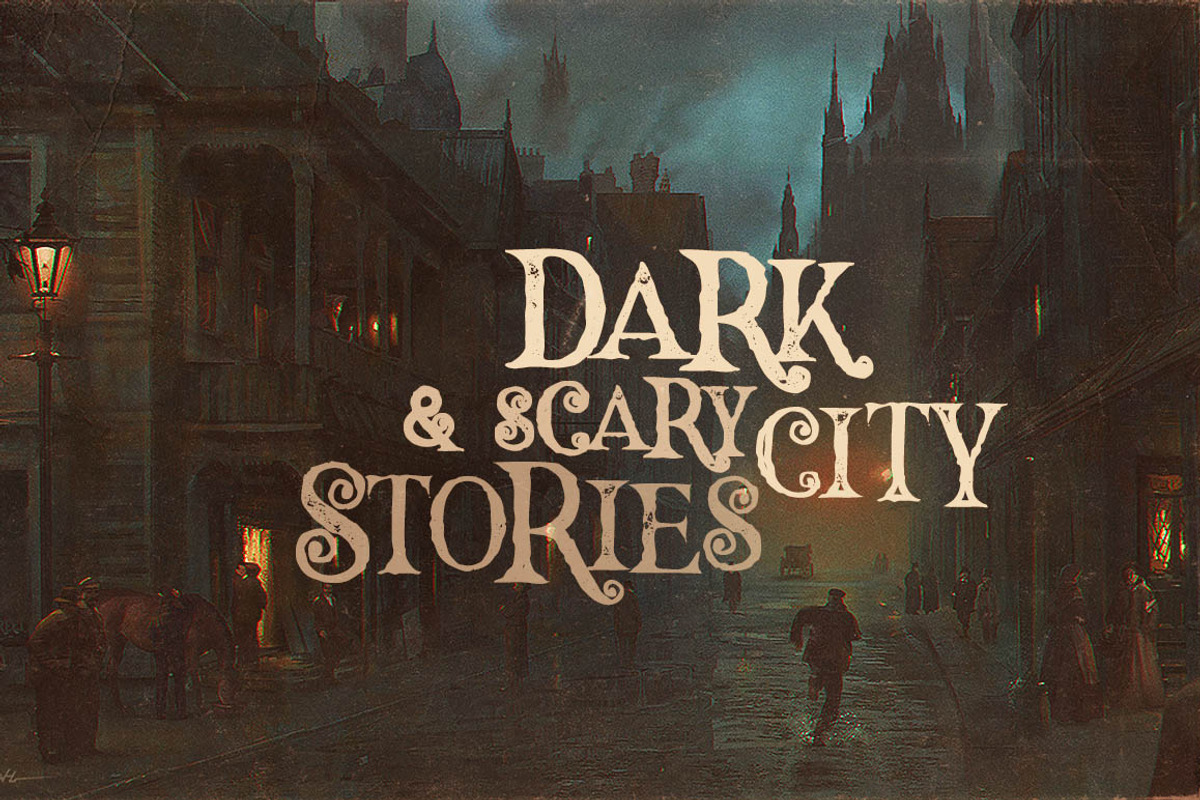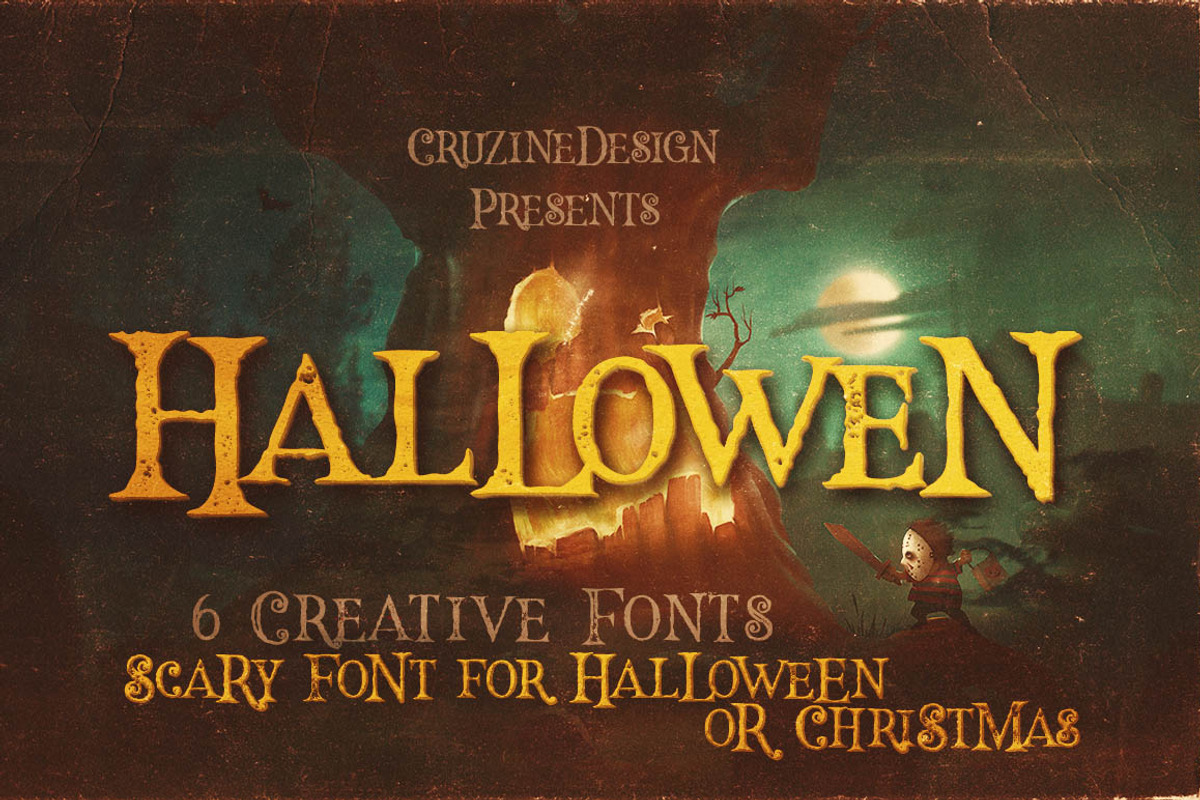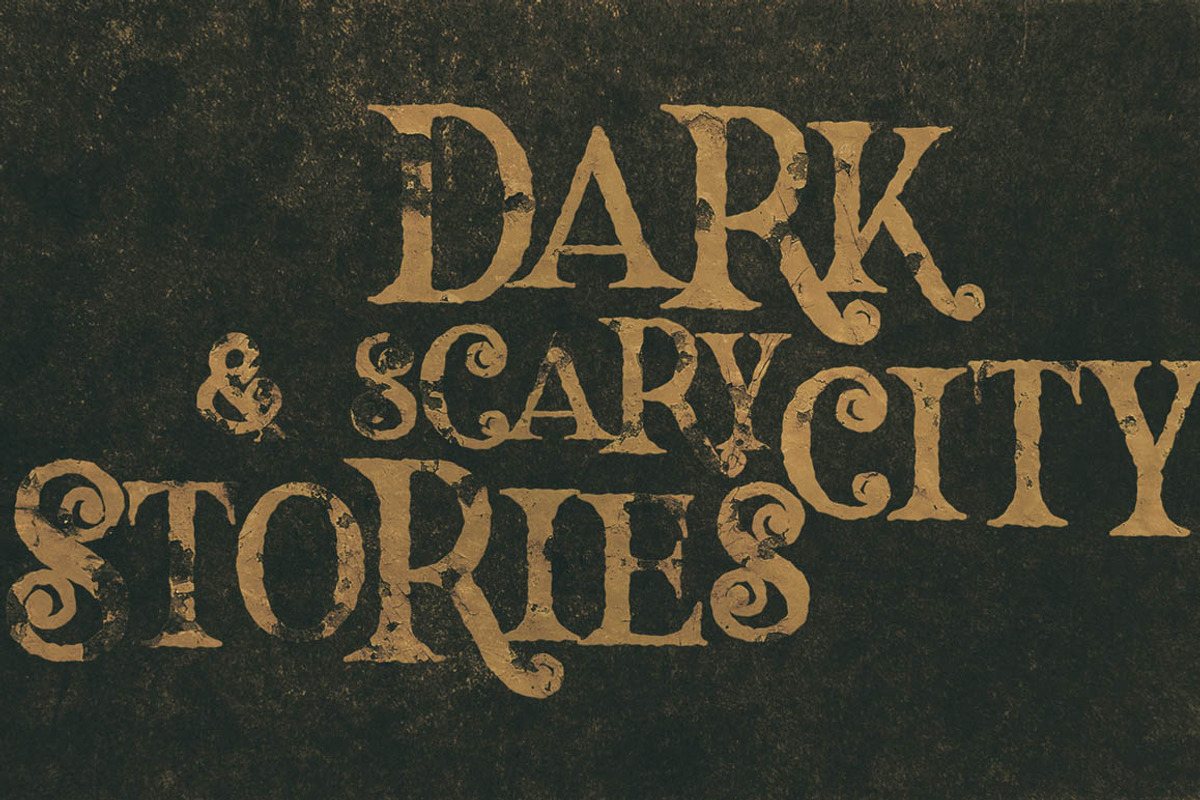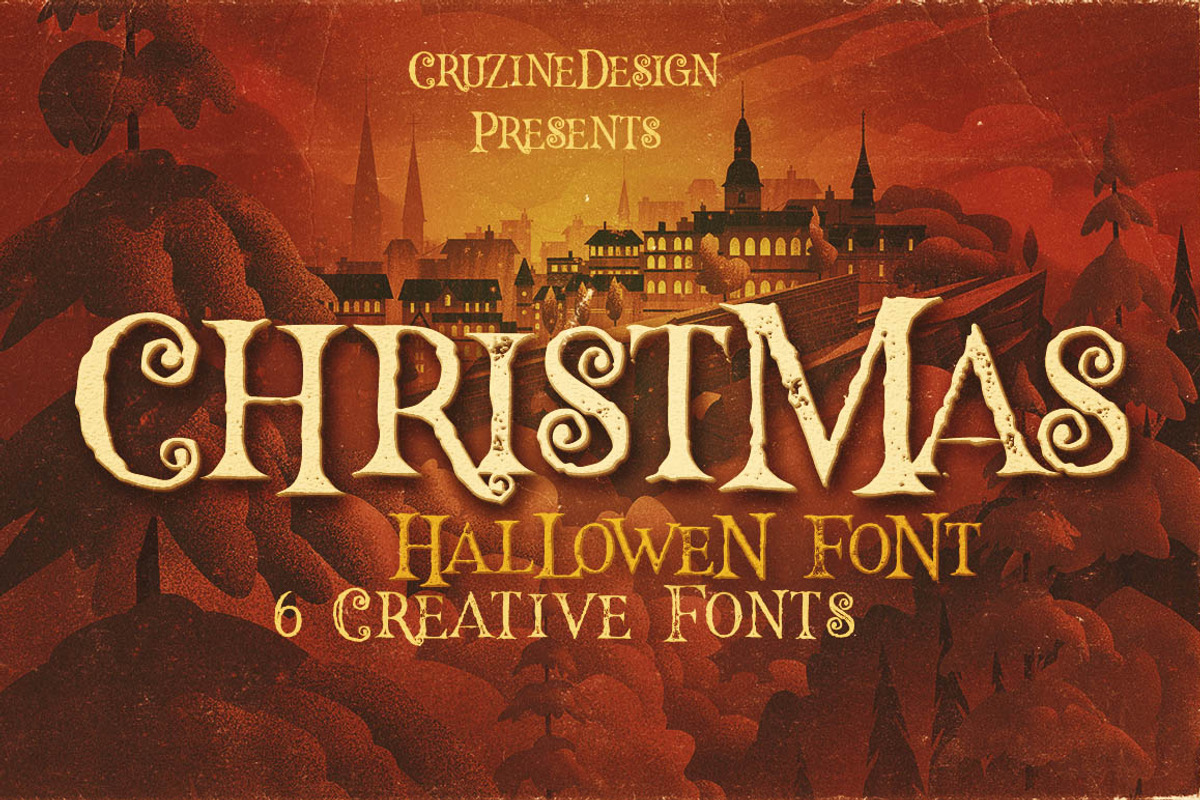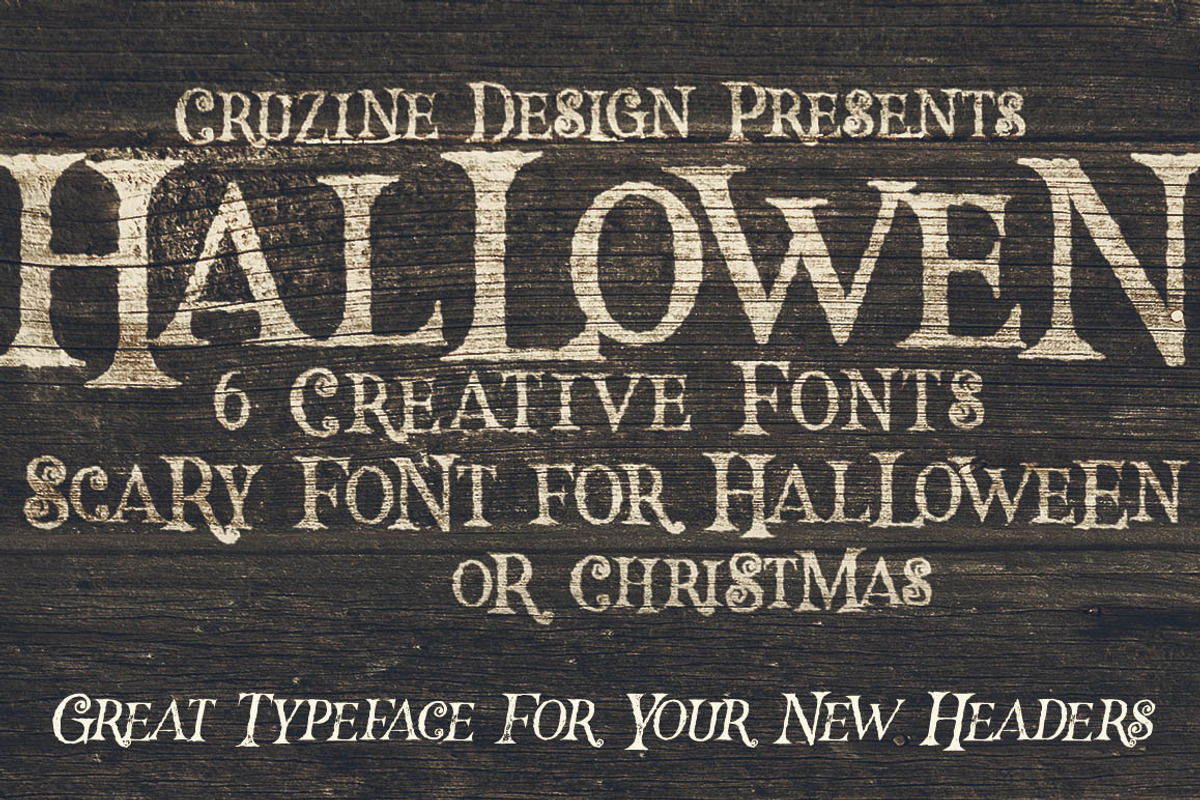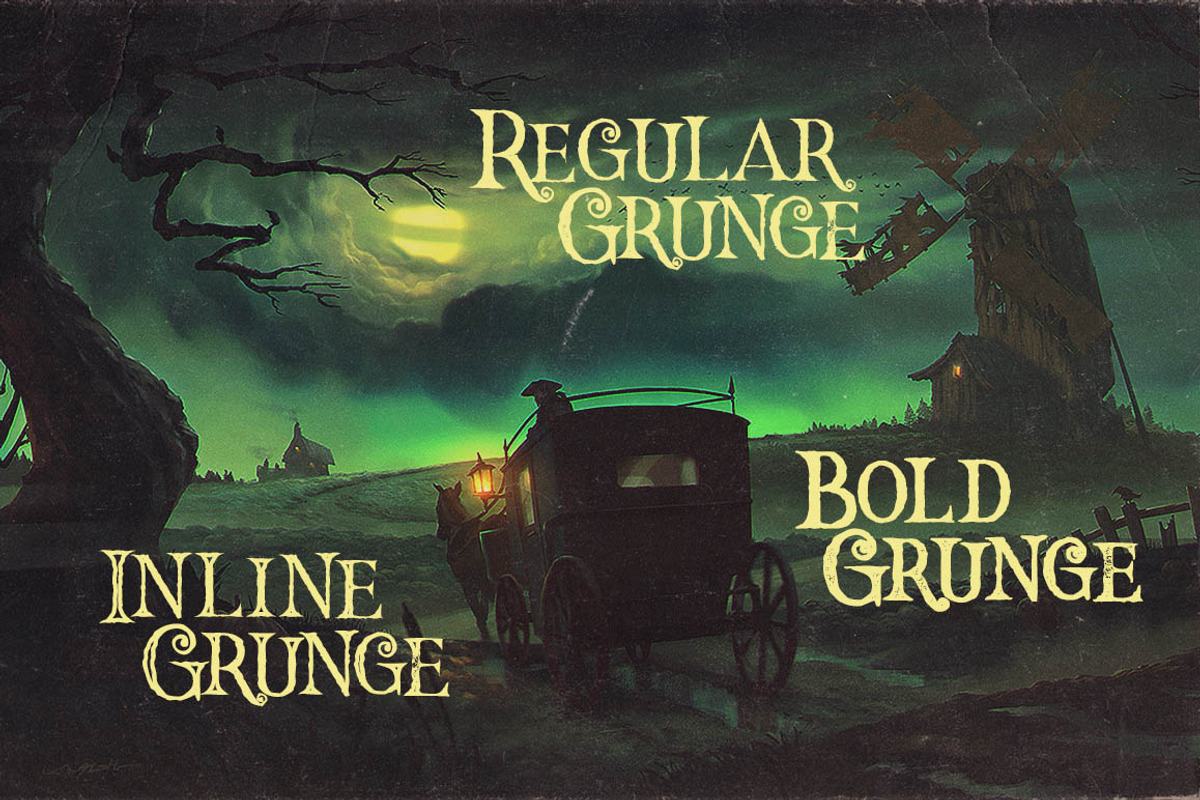
Hallowen Typeface
Hallowen Typeface by Cruzine is a font selected for branding, posters, packaging, typography.
Why Hallowen Typeface is worth a look
Hallowen Typeface by Cruzine fits naturally into Branding, posters, packaging, typography.